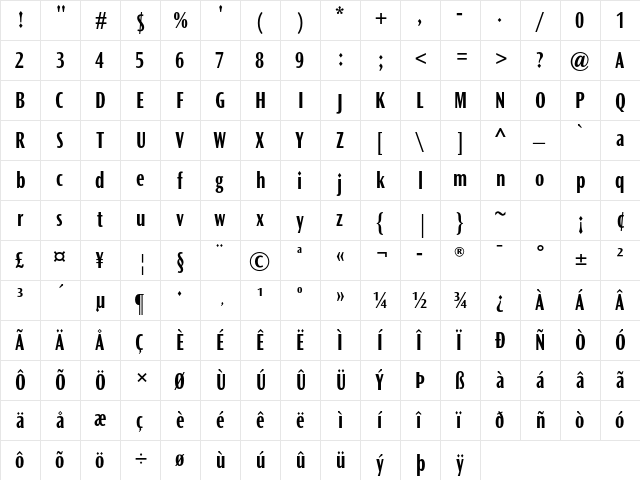
Ocean Sans MT Pro Bold Cond Font Preview
| Designer | ChongWah |
Design Context for Ocean Sans MT Pro Typeface
Ocean Sans MT Pro takes a measured approach to typography — its balanced proportions and neutral character make it a reliable workhorse for both digital and print work. The heavy weight commands attention and anchors typographic hierarchies. The condensed width makes it efficient for tight spaces without sacrificing legibility.